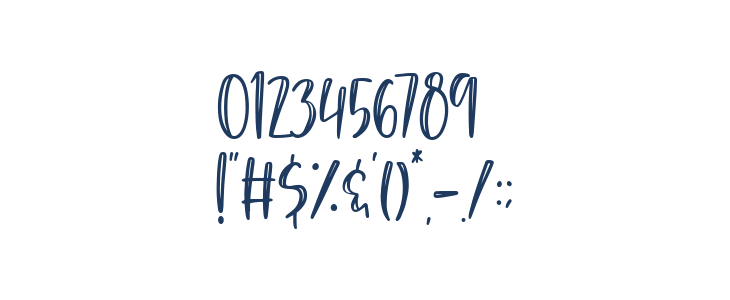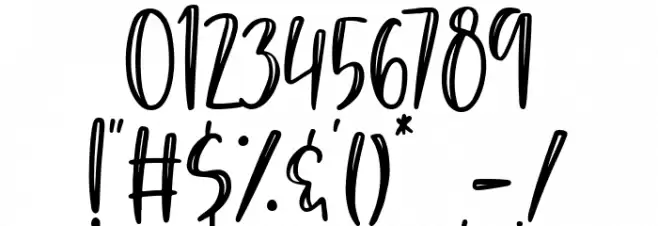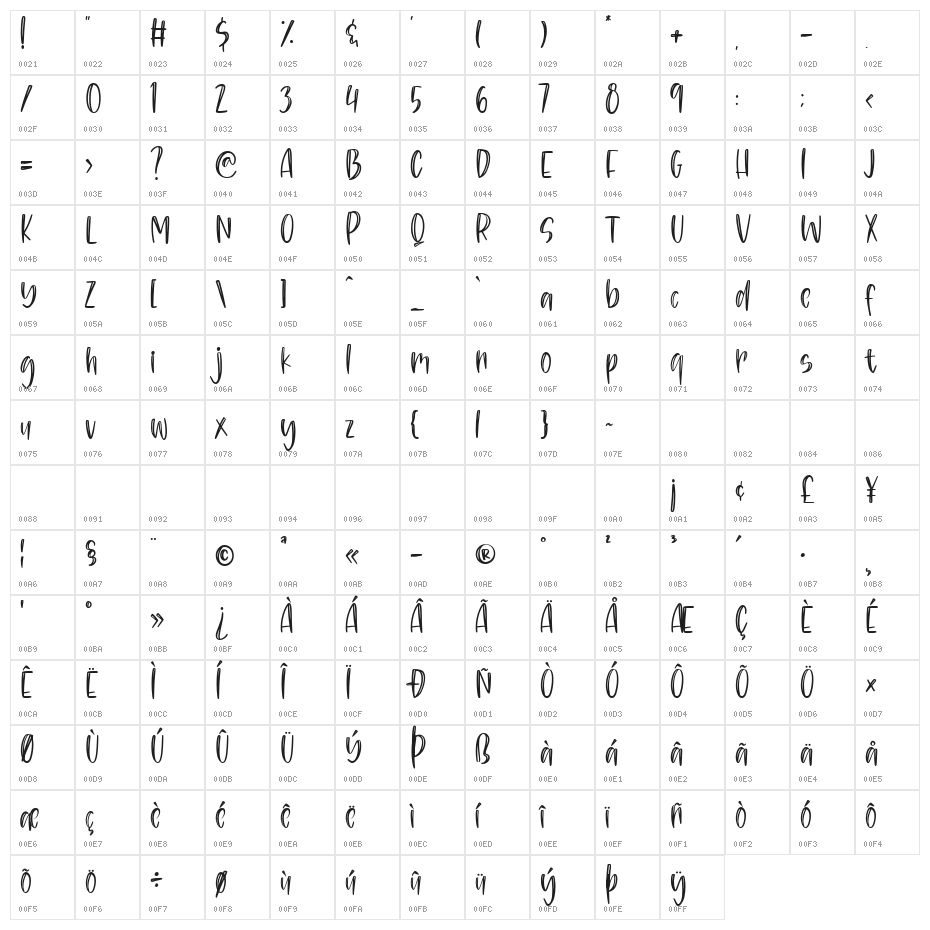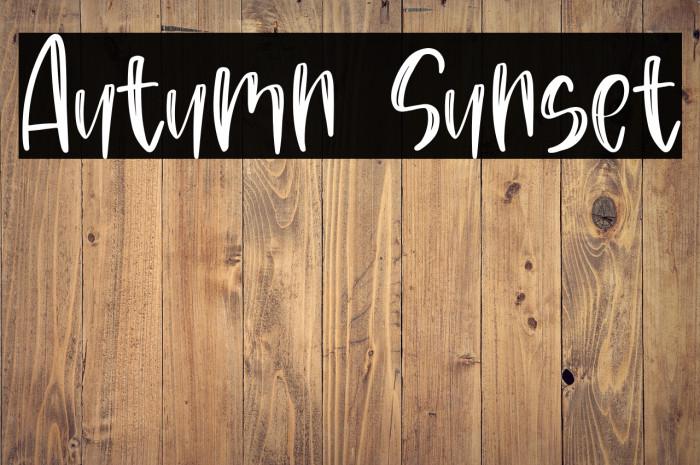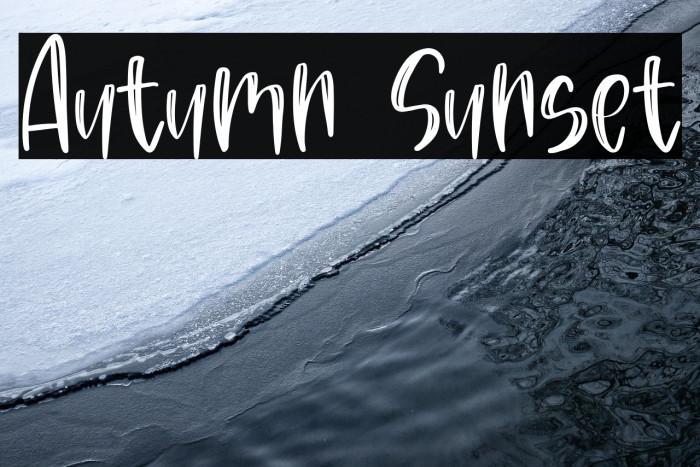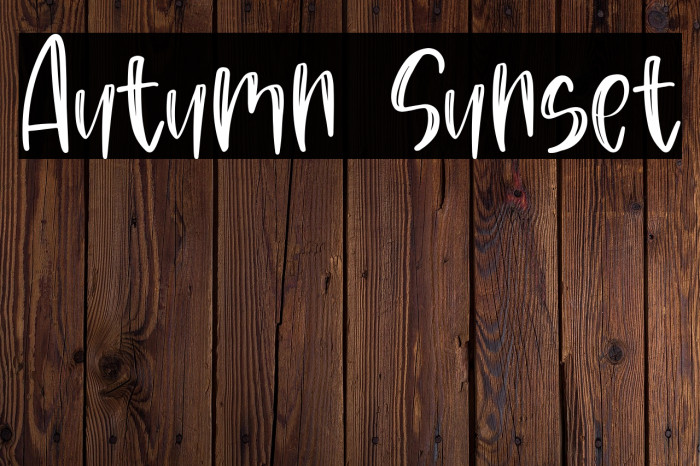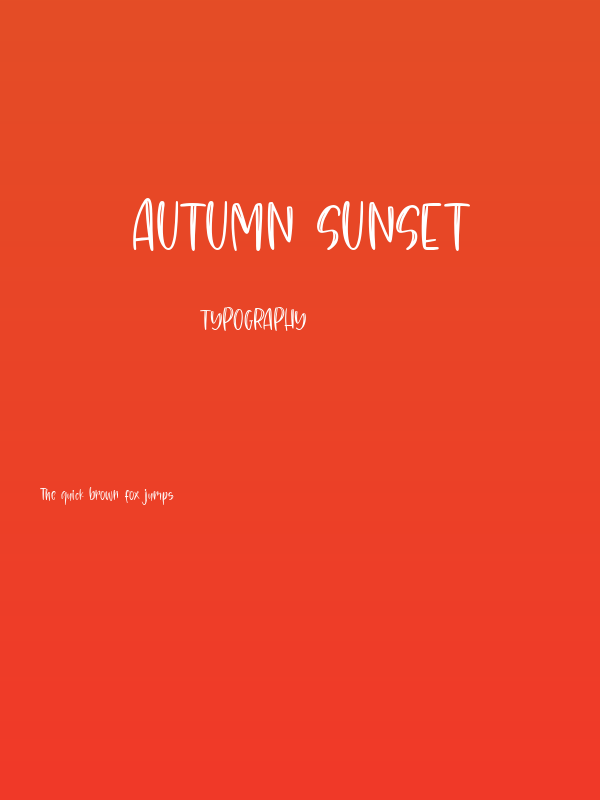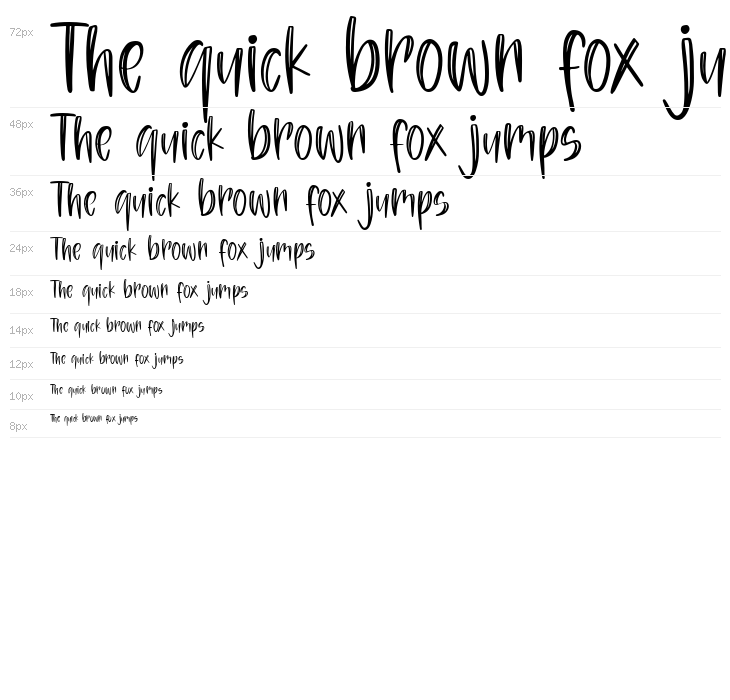
Autumn Sunset Font
Autumn Sunset Description
This font features a playful and energetic handwritten style, characterized by its flowing and slightly irregular letterforms. The uppercase and lowercase letters have a casual, friendly appearance, with a slight slant that adds to its dynamic feel. The strokes are bold and consistent, giving the font a strong presence while maintaining a sense of approachability. The numerals and special characters are crafted with the same lively spirit, ensuring a cohesive look across all text elements. This font is perfect for projects that require a personal touch, such as invitations, greeting cards, or branding for creative businesses.